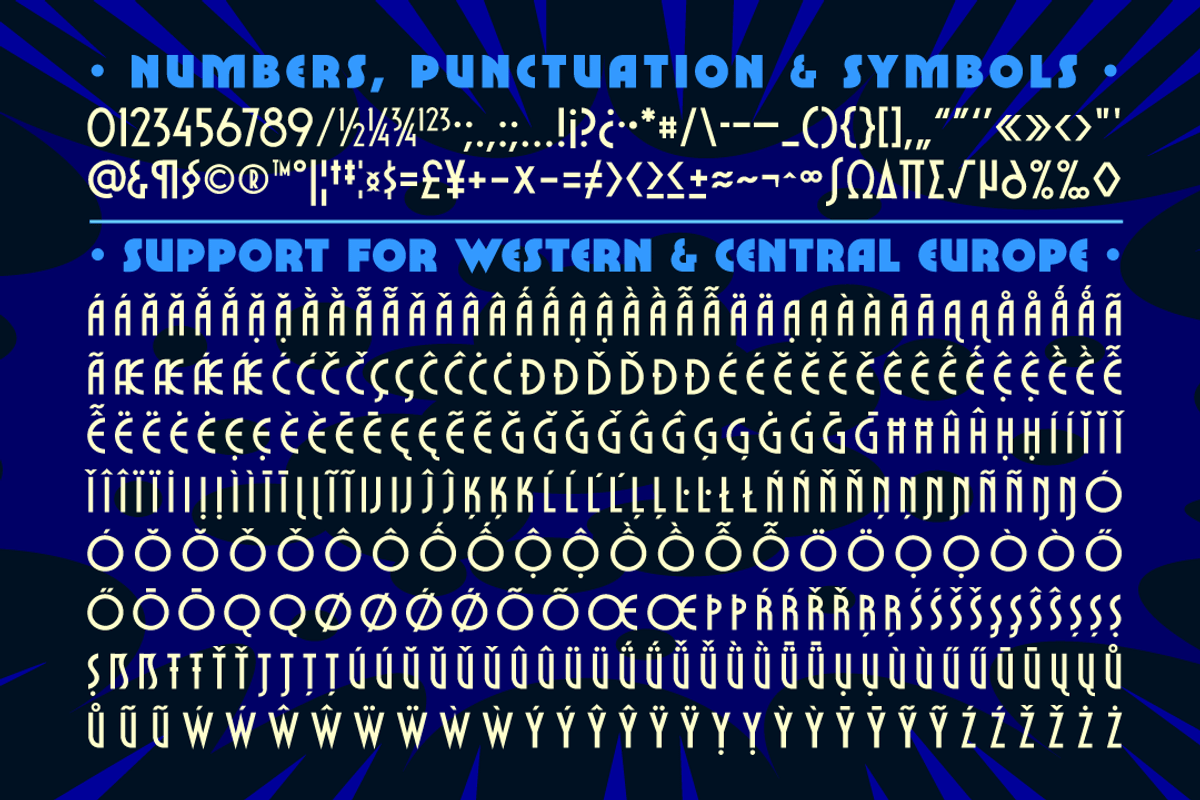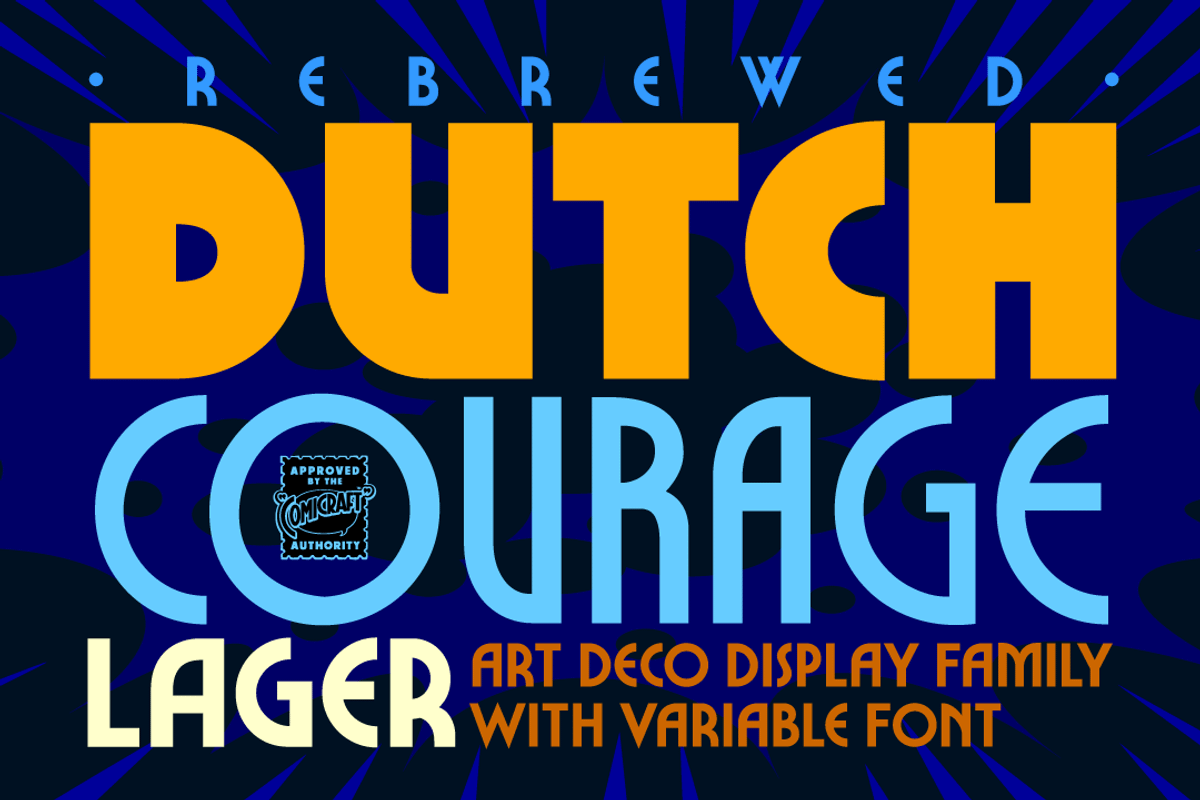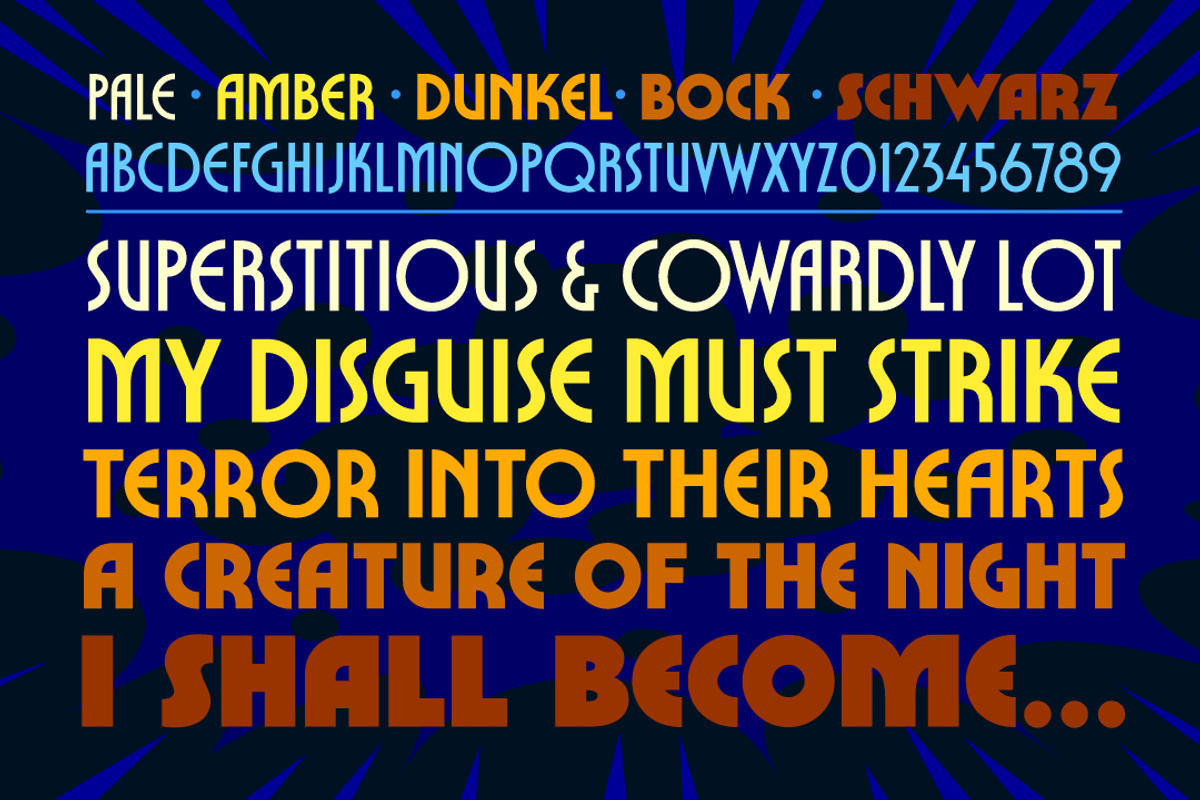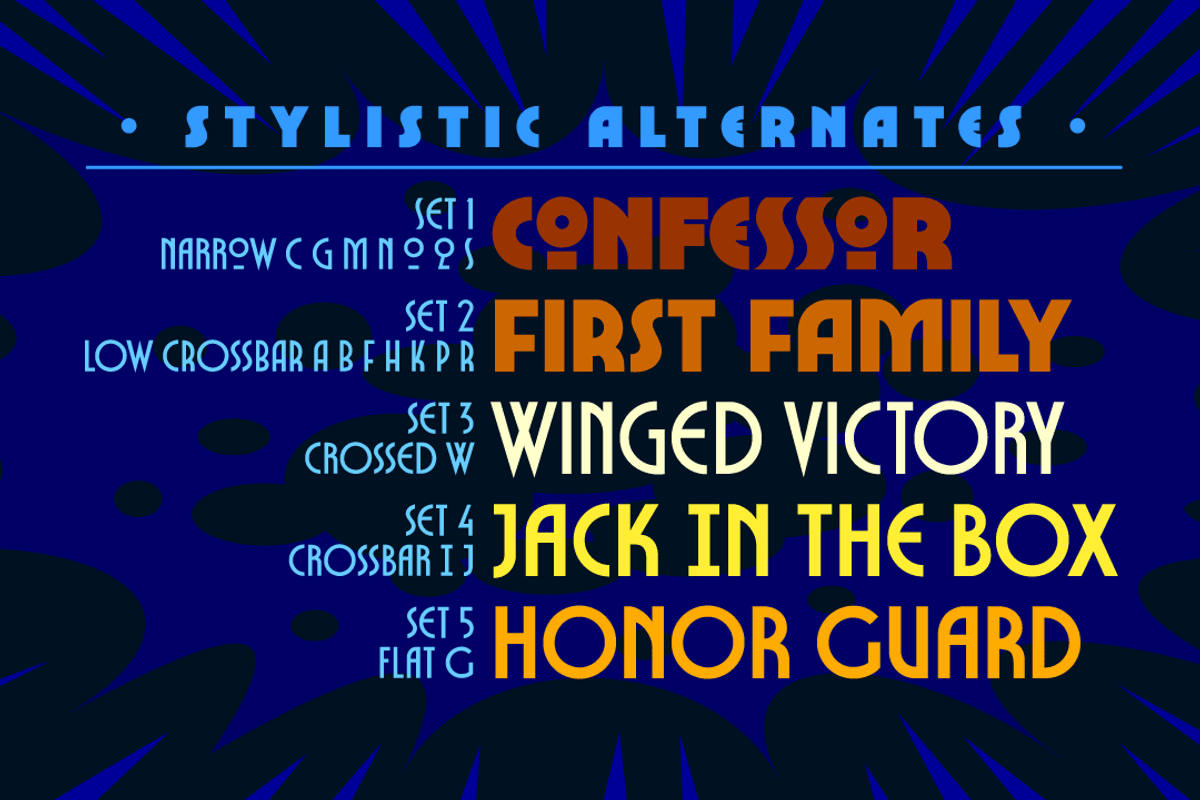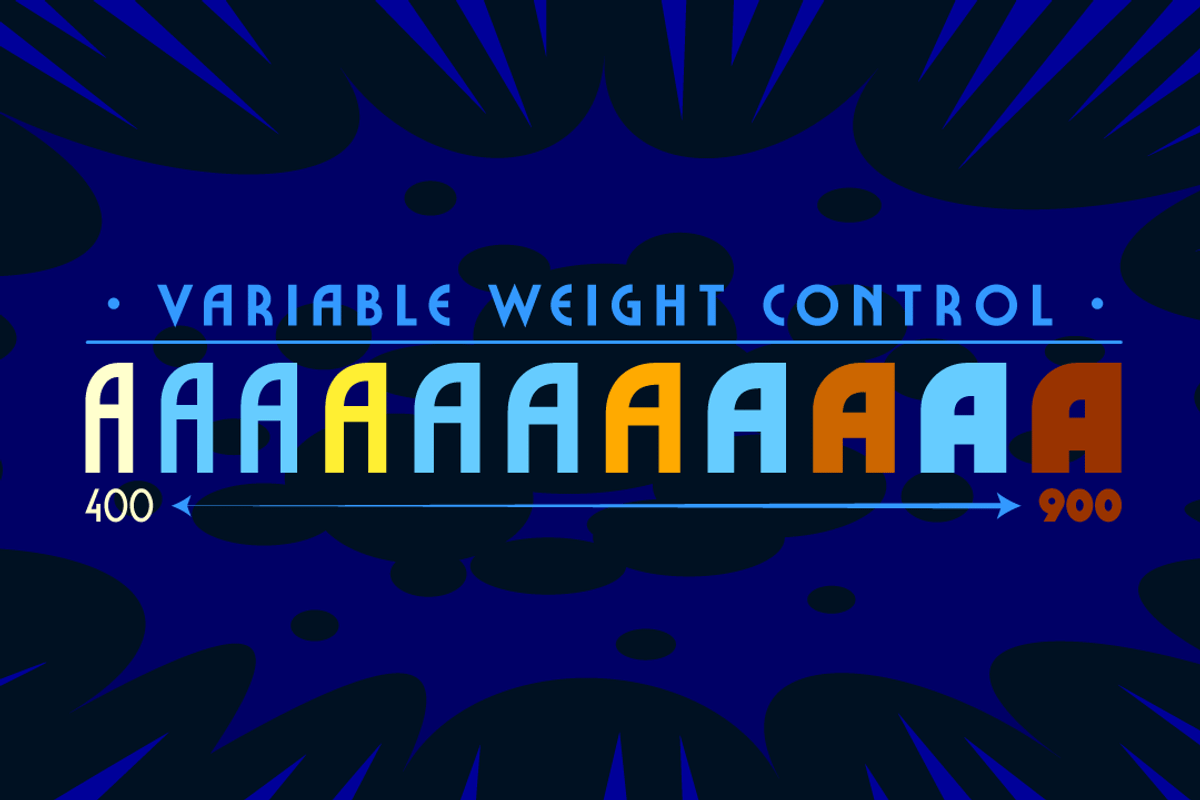
Dutch Courage Lager - '70s Art Deco
Citizens of greater metropolis rejoice! Comicraft’s Dutch Masters have Rebrewed DUTCH COURAGE, the fonts originally created to give a crisp, clean, Art Deco look to DC's BATMAN ADVENTURES, and later known for lending Kurt Busiek’s ASTRO CITY its classy, streamlined typographic style.
Dutch Courage Lager has a round, 1970s Art Deco revival vibe, with weights from "Pale" to "Schwarz". Includes four sets of Stylistic Alternates to access additional letter shapes.